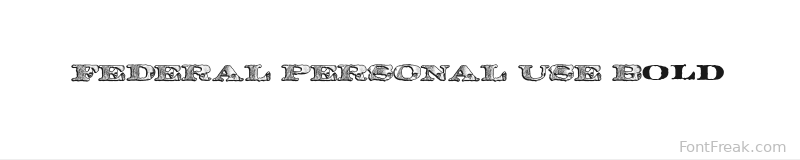
FEDERAL PERSONAL USE Bold
About FEDERAL PERSONAL USE Bold
FEDERAL PERSONAL USE Bold is a striking display font designed by Billy Argel Fonts, perfect for those in search of a distinctive typeface for personal projects. This bold, decorative font falls into the display category, making it an eye-catching choice for various creative applications. Its substantial stroke weight and slightly rough edges give it a vintage, rugged charm that effectively captures attention.
Visually, FEDERAL PERSONAL USE Bold boasts a strong presence with a balanced contrast between thick and thin strokes, providing a sense of dynamism while retaining clarity. The letter spacing is generous, enhancing readability, which is crucial for impactful designs. This font also features subtle decorative elements that add character without overwhelming the overall aesthetic, making it suitable for both modern and retro-themed projects.
The versatility of FEDERAL PERSONAL USE Bold allows it to shine in several use cases. It is an excellent choice for crafting unique wedding invitations that convey a personal touch, or for designing movie posters that require a bold statement. Additionally, this font works well for restaurant menus, where its striking appearance can entice diners. Graphic designers and content creators looking for a standout typeface will find this font particularly appealing for branding and promotional materials.
Targeting graphic designers, small business owners, and content creators, FEDERAL PERSONAL USE Bold provides an engaging option for anyone needing a font that speaks volumes. Its distinctive style sets it apart from more conventional typefaces, ensuring that your message is not only heard but also remembered. For those interested in exploring its unique charm, the FEDERAL PERSONAL USE Bold font free download offers a fantastic opportunity to elevate your creative projects.